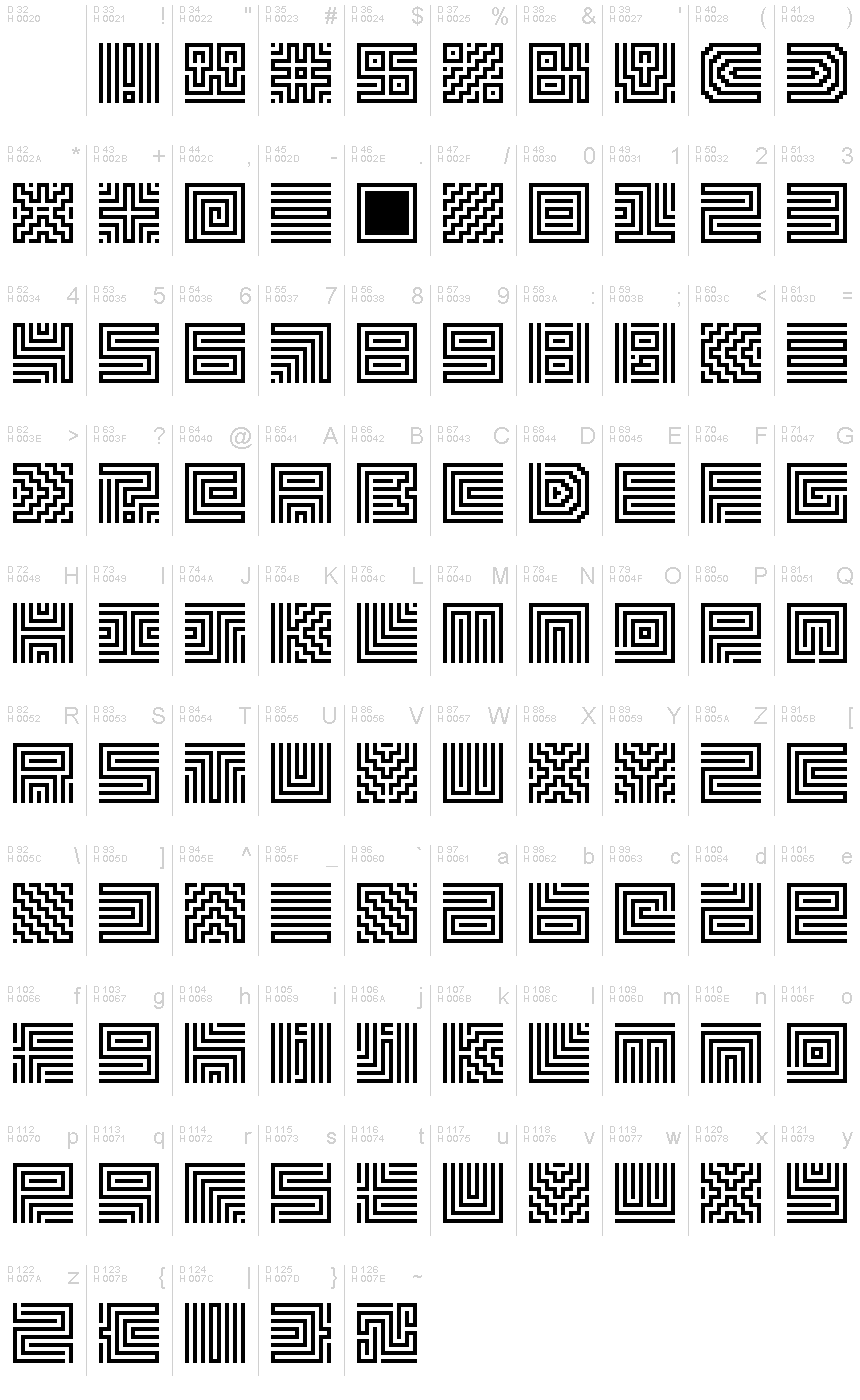
Absinthelyric Print Regular
Designer description: A multi-line design which is slightly reminescent of mazes/fingerprints. It's not designed to create functional mazes, but it is somewhat capable!
"Absinthelyric Print" is an anagram for "Labyrinthine Script".
Original size: 11.25pt. Use multiples of this value for pixel perfection. (If you use antialiasing, it will look perfect at most any size.)
Design rules:
1. Square bricks and 90-degree angles only.
2. Alphabetic glyphs must have open terminals; numerals and symbols must have closed terminals. Letters which do not terminate (D,O, etc.) must be broken so that they terminate.
3. Glyphs must fill the 15x15 grid.
4. Ligatures and combinatorial glyphs must fit into one letter's space.
5. Draw from the outside in.